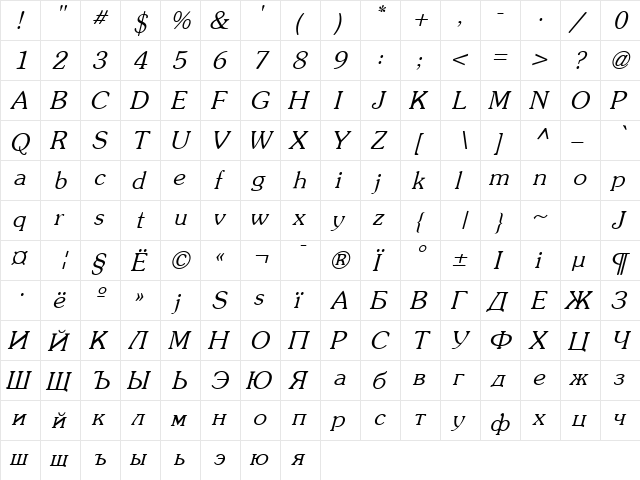
Prestige Italic
Design Context for Prestige Typeface
Prestige takes a measured approach to typography — its balanced proportions and neutral character make it a reliable workhorse for both digital and print work. The dynamic lean of this cut emphasises speed and emphasis in any layout.
Pro Tip: Try Prestige for annotation and caption copy alongside an upright companion — the contrast in angle creates a dynamic but ordered typographic system.